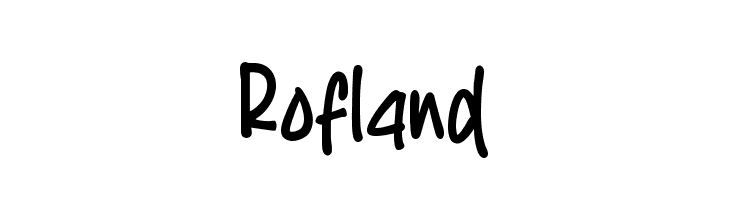
An intricate Blackletter font with ornate, angular letterforms and historical elegance.
An elegant, flowing script font with a signature-like style.
A bold, semi-condensed geometric sans-serif with tight spacing and heavy strokes.
A playful, bold handwritten font with smooth, rounded edges and a friendly appearance.
An elegant, flowing script font with graceful curves and artistic flair.
A bold, italic font with a comic book style and strong outlines.
A delicate and elegant script font with graceful, flowing strokes.
A playful, handwritten font with smooth, rounded edges and consistent strokes.
A playful, bold outline font with rounded edges and hollow interiors.
A graceful and flowing script font with elegant, connected characters.